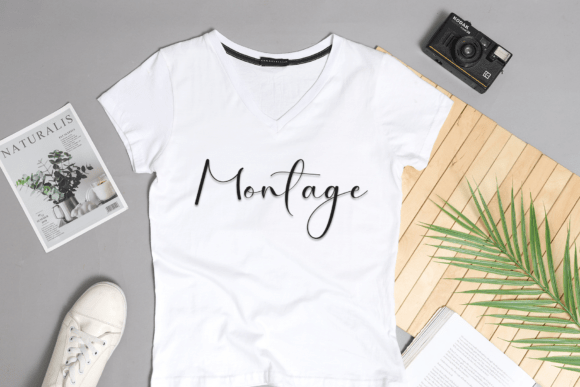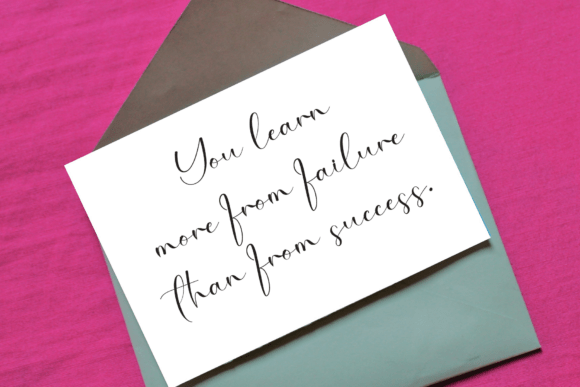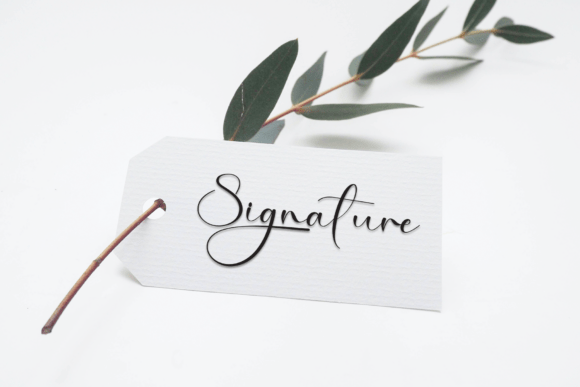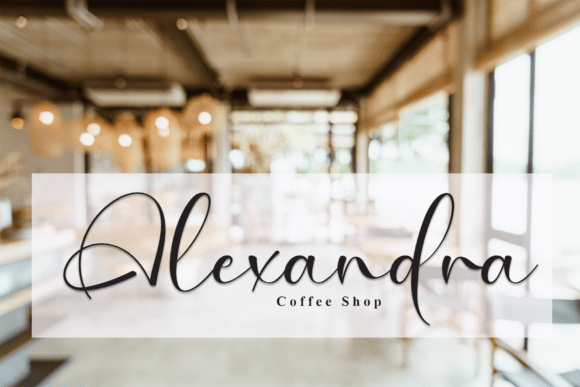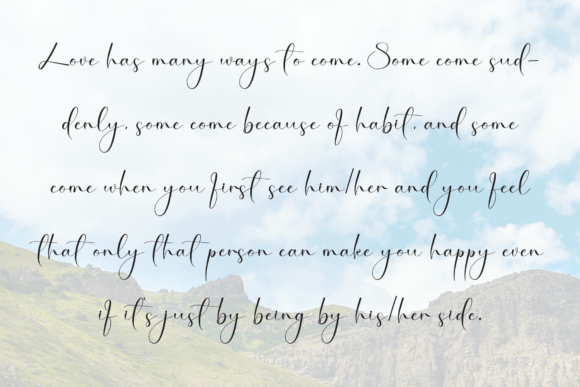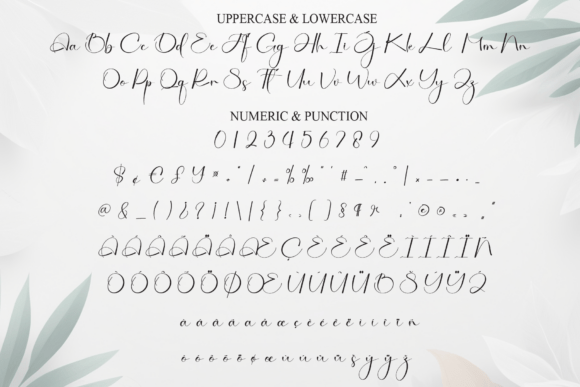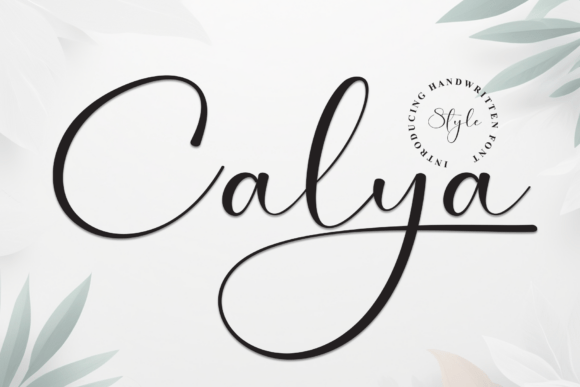
Introducing Calya Font: Elevate Your Designs with Elegance and Modern Charm
In the world of typography, few fonts manage to strike a balance between elegance and modernity. Calya Font is one such exceptional typeface that embodies both sophistication and contemporary charm. This stylish script font is designed to bring a touch of luxury and personality to various design projects, making it an ideal choice for designers and crafters alike.
The Beauty of Calya Font
Calya Font boasts fluid strokes, graceful curves, and meticulously balanced letterforms that reflect the beauty of hand-drawn calligraphy with a modern twist. The font’s design ensures a natural flow, making it perfect for creating visually appealing text that captures the reader’s attention. Its refined details add a layer of sophistication, setting it apart from more conventional typefaces.
One of the standout features of Calya Font is its versatility. Whether you’re working on a logo, invitation, packaging, or social media graphics, this font seamlessly adapts to various design needs. Its elegant appearance makes it suitable for high-end brands looking to establish a sophisticated image, while its modern charm ensures it remains approachable and engaging.
Ideal for Various Design Projects
- Logos: Create a lasting impression with a logo that exudes elegance and professionalism. Calya Font’s unique style ensures your brand stands out.
- Invitations: Whether it’s a wedding, birthday, or corporate event, Calya Font adds a touch of class and sophistication to your invitations.
- Packaging: Elevate your product’s packaging with a font that communicates luxury and quality. Calya Font can help make your product stand out on crowded shelves.
- Social Media Graphics: Engage your audience with stylish social media graphics. Calya Font’s modern charm makes it perfect for creating eye-catching posts and stories.
Why Choose Calya Font?
Choosing Calya Font for your design projects comes with numerous benefits:
- Elegance: It brings an unmatched level of elegance to your designs.
- Modernity: Its contemporary edge ensures your designs feel current and relevant.
- Versatility: It can be used across a wide range of design projects.
- Readability: Despite its elegant and cursive nature, Calya Font maintains a high level of readability, making it suitable for both headings and body text.
Tips for Using Calya Font Effectively
To maximize the impact of Calya Font in your designs, consider the following tips:
- Pair it with Simplicity: Combine Calya Font with simpler typefaces or ample white space to create a balanced design.
- Experiment with Colors: While Calya Font looks stunning in black or dark colors, don’t hesitate to experiment with other hues to match your brand’s palette or the theme of your design.
- Play with Sizes: Utilize varying font sizes to create a visual hierarchy, making your design more engaging and easier to navigate.
Calya Font is more than just a typeface; it’s a design statement. Its elegant strokes, modern charm, and versatility make it an invaluable asset for designers and crafters looking to elevate their projects. Whether you’re aiming to create a sophisticated brand image, craft beautiful invitations, or design engaging social media content, Calya Font is the perfect choice. Embrace the elegance and modernity of Calya Font in your next design project and witness the transformative power of typography.